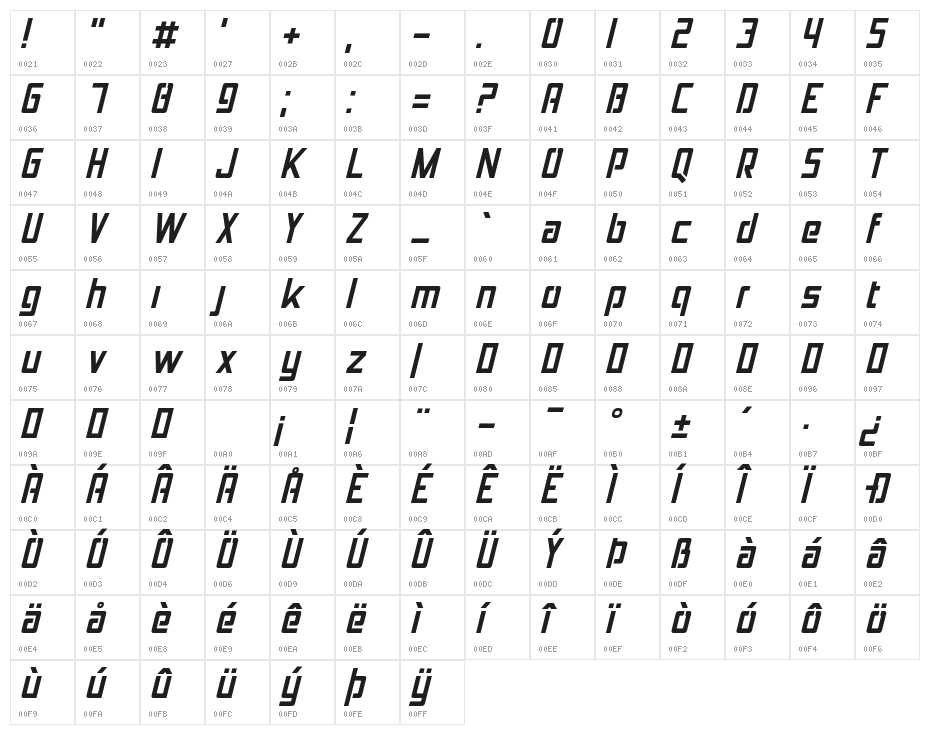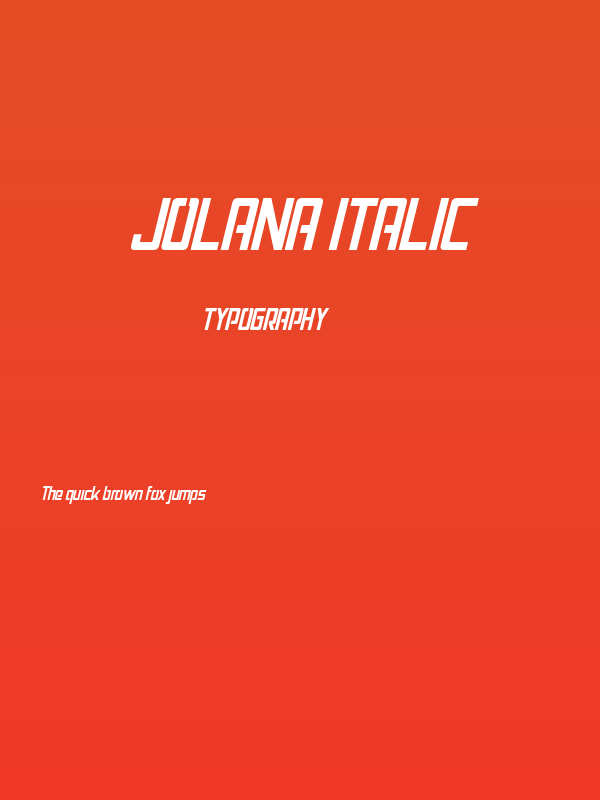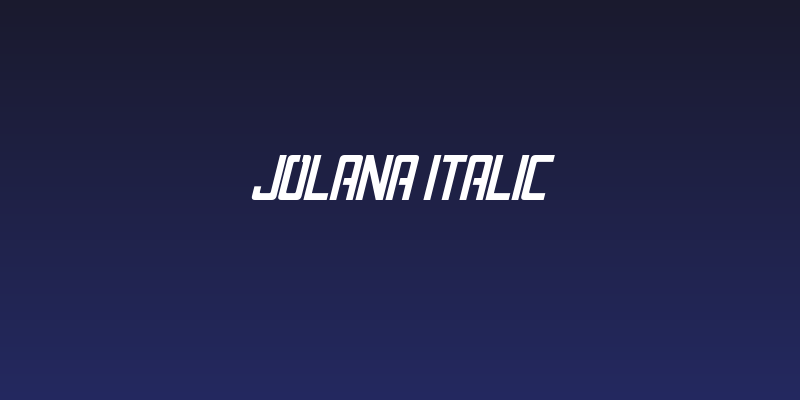
Jolana Italic Font
Jolana Italic Description
This font features a dynamic and modern italic style with a strong geometric influence. The characters are slightly slanted, giving a sense of motion and speed. Each letter is crafted with precision, showcasing sharp angles and clean lines. The uppercase letters are bold and commanding, while the lowercase letters maintain a consistent flow. Numbers and special characters are designed to match the overall aesthetic, providing a cohesive look. The font's unique style makes it suitable for projects that require a contemporary and energetic feel.
| Proposed Projects | Ideal for branding, sports team logos, automotive designs, and modern advertising campaigns. |